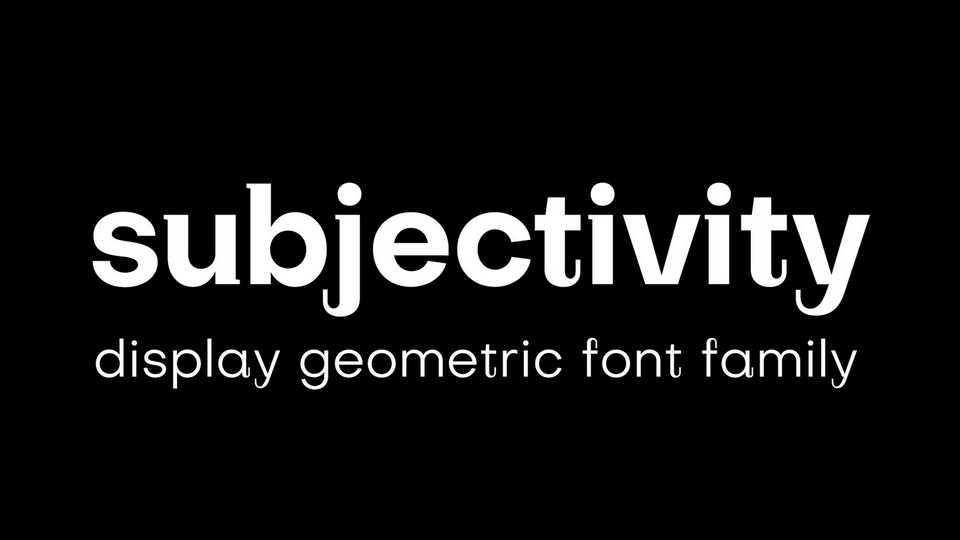
Download Subjectivity typeface, a strange experimental display font family in 8 weights and 16 styles that has a geometric skeleton and unusual features.
Designer: Alex Slobzheninov